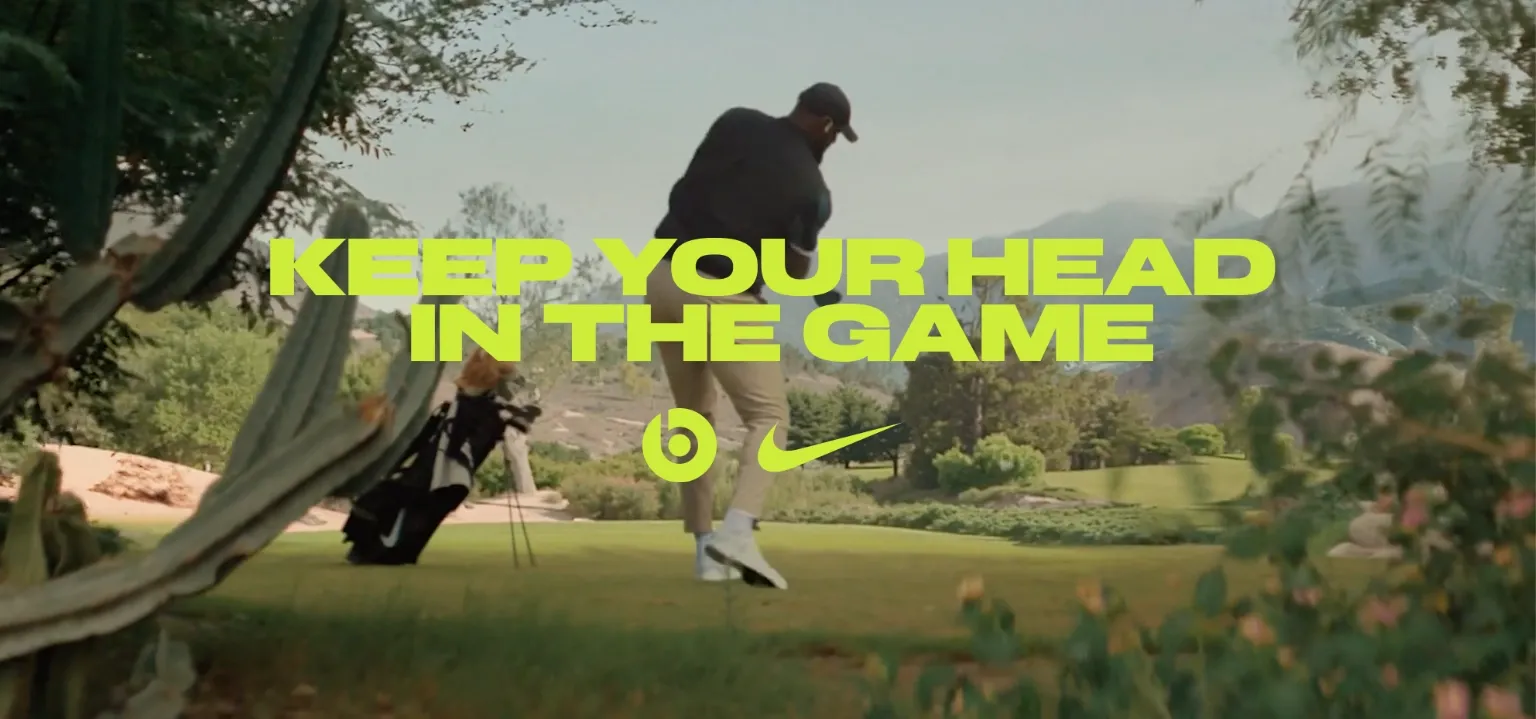
CoFo Kak
About CoFo Kak
CoFo Kak is a powerful sans with an unconventional family structure. Just 3 styles? Yes, you got it right. While the design world is obsessing over superfamilies with hundreds of styles and variable fonts with seemingly ‘limitless’ possibilities, we dare to create a family so small! Because by limiting the amount of styles, we can allow ourselves to design a functional sans with organic personality and no compromises.
As a cactus that grows slowly and changes shape, CoFo Kak may evolve in the future too. But right now, it is perfectly formed and ready to use, complete with Latin and Cyrillic. The style variation may look extreme at a first glance, going from a condensed Regular to a wide Black. But there is nothing random about this selection: it creates an opportunity for the designers to use and combine them in exciting ways.
CoFo Kak has a large x-height, compact ascenders, descenders and caps. Together with the tight spacing, that gives you a rhythmic and impactful texture that fills the space. This makes it ideal for branding and editorial use, and for those looking for a powerful visual ally to convey their message.
The cactus is a symbol of strength and endurance, it stands up to the test of time and it thrives in the harshest environments. These are great qualities for a typeface too, which is why we chose the cactus as a symbol. We hope you will love CoFo Kak as much as millennials love succulents!
Styles: Regular, Medium, Black